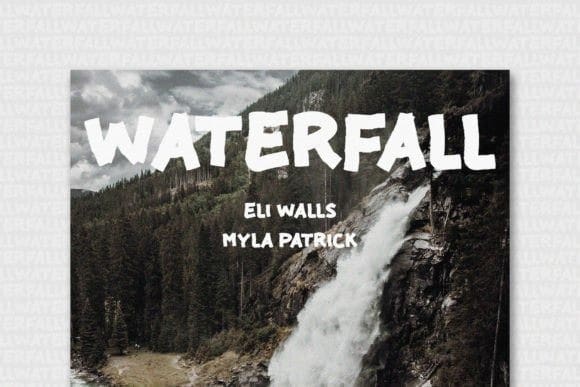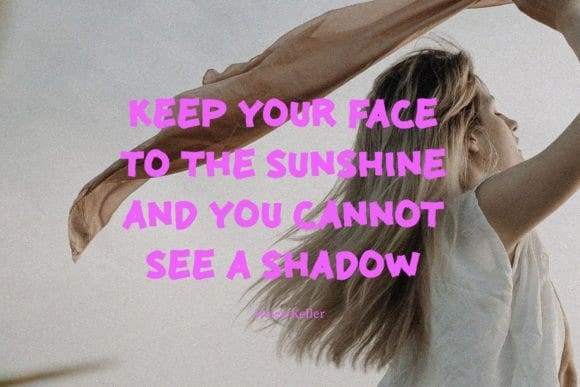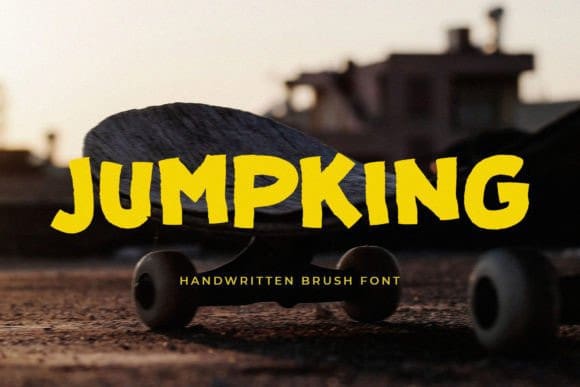
Jumpking Display Font
Jumpking Display Font, is a fun and unique handwritten display font. Bold, assertive, yet still maintaining a friendly touch, this font will be a wonderful asset to your font library.